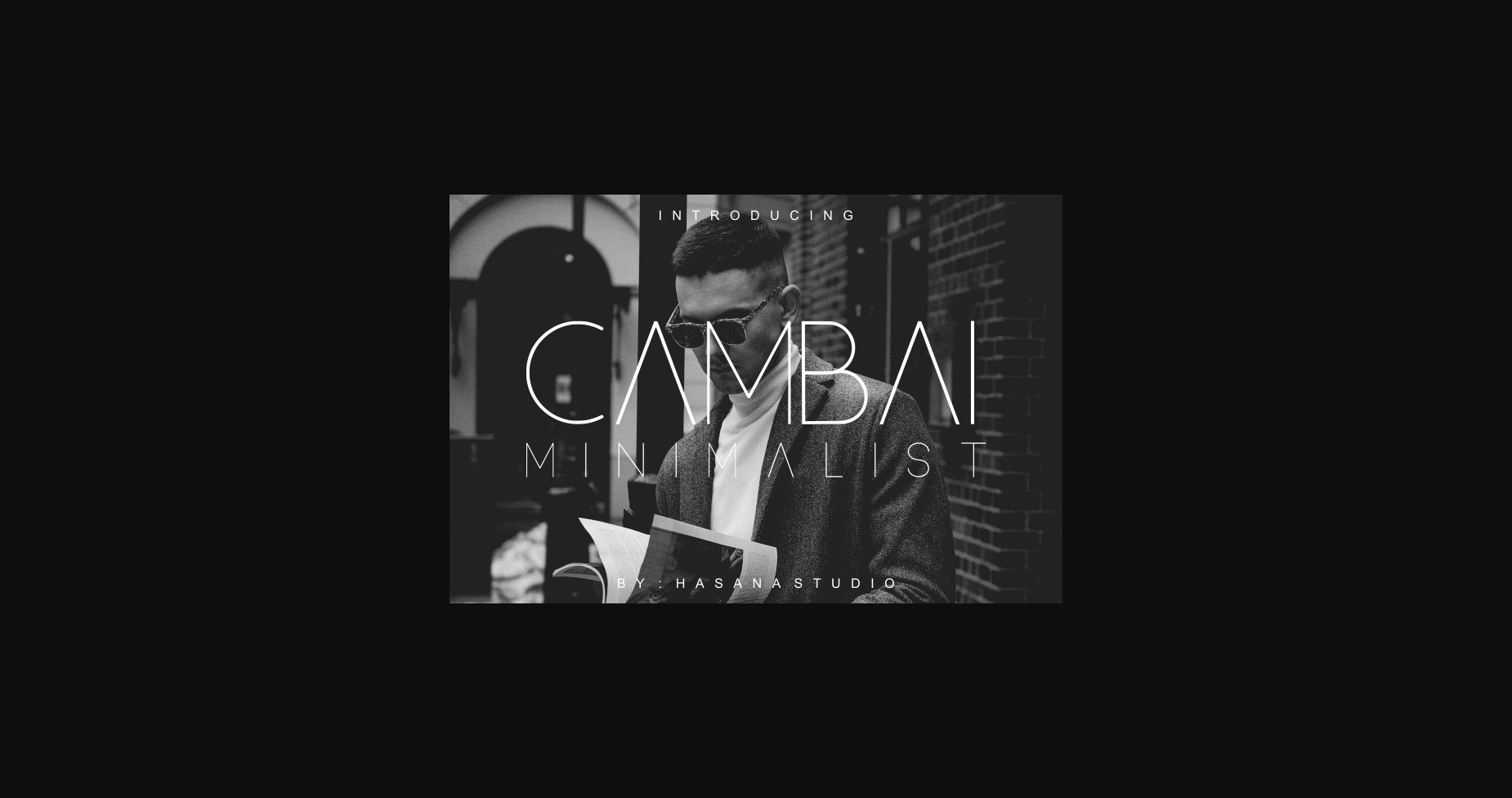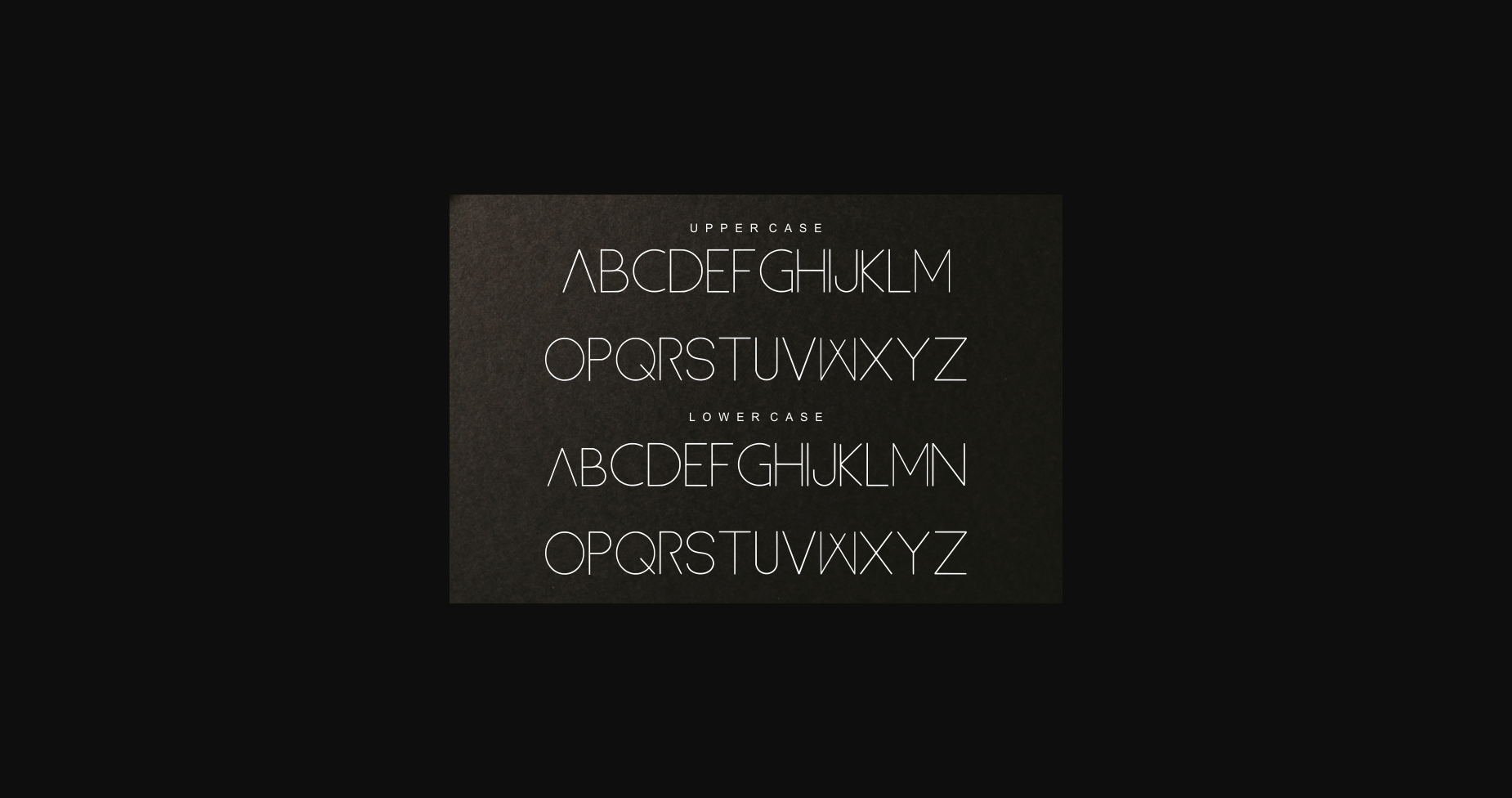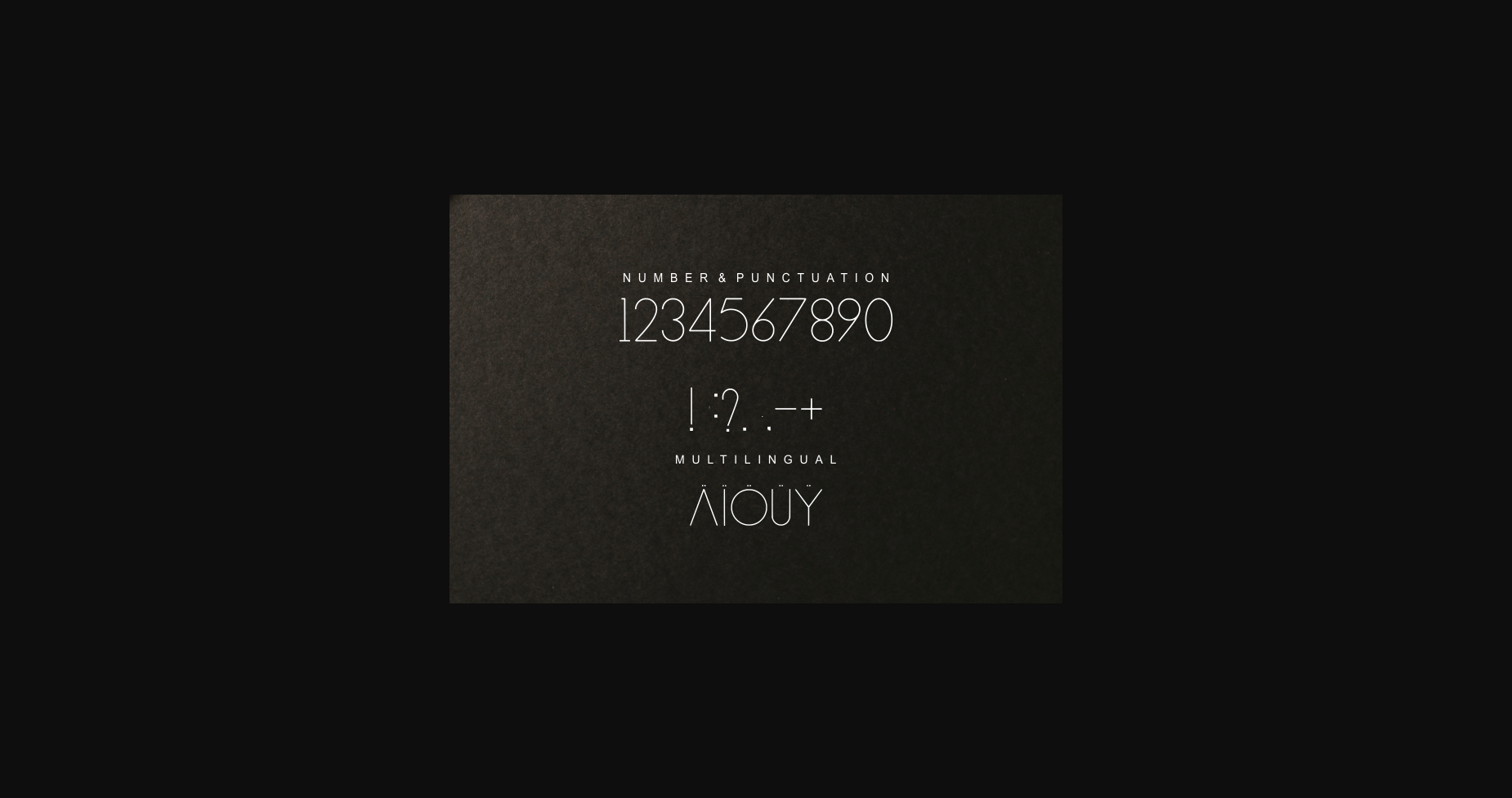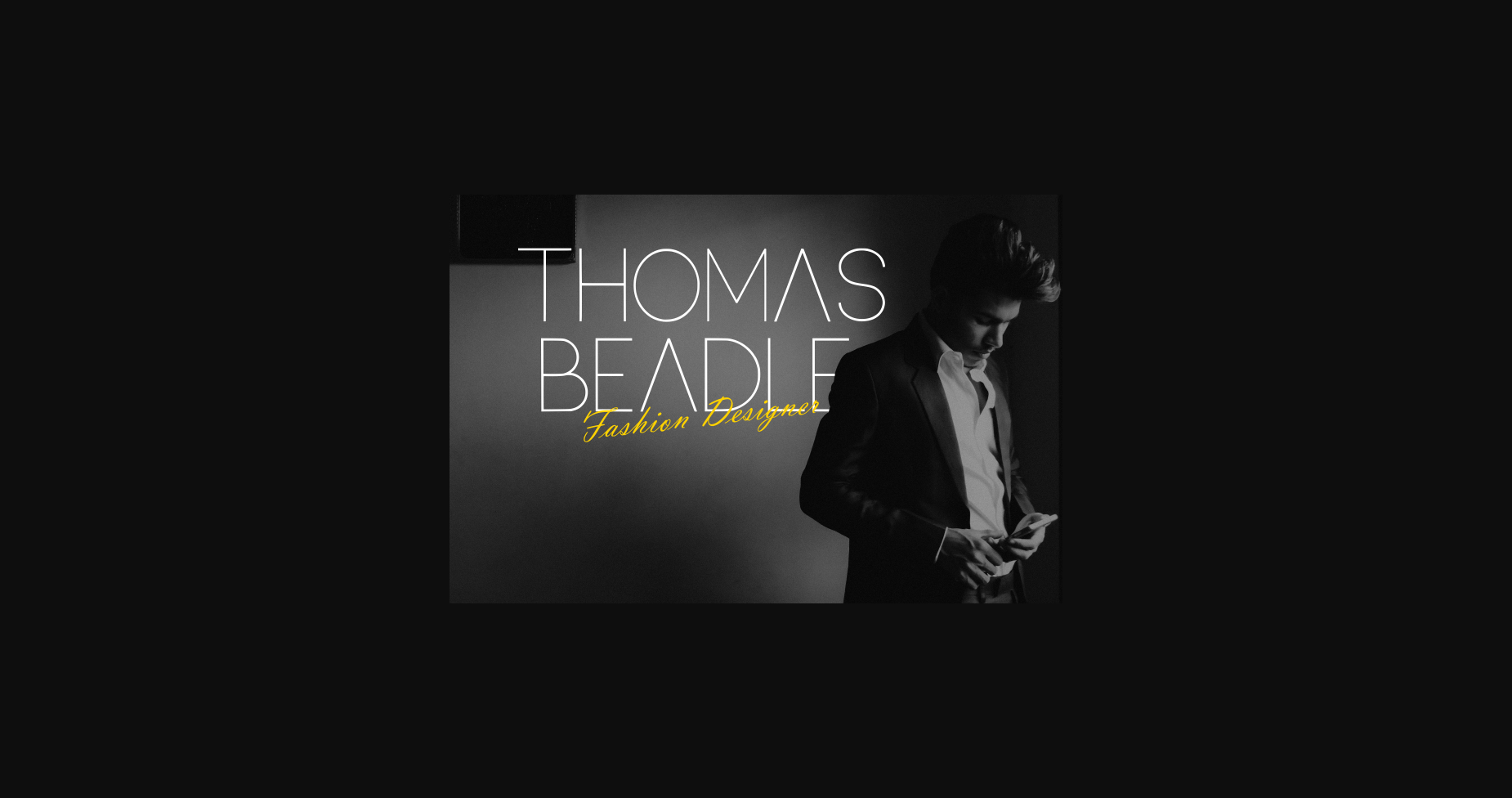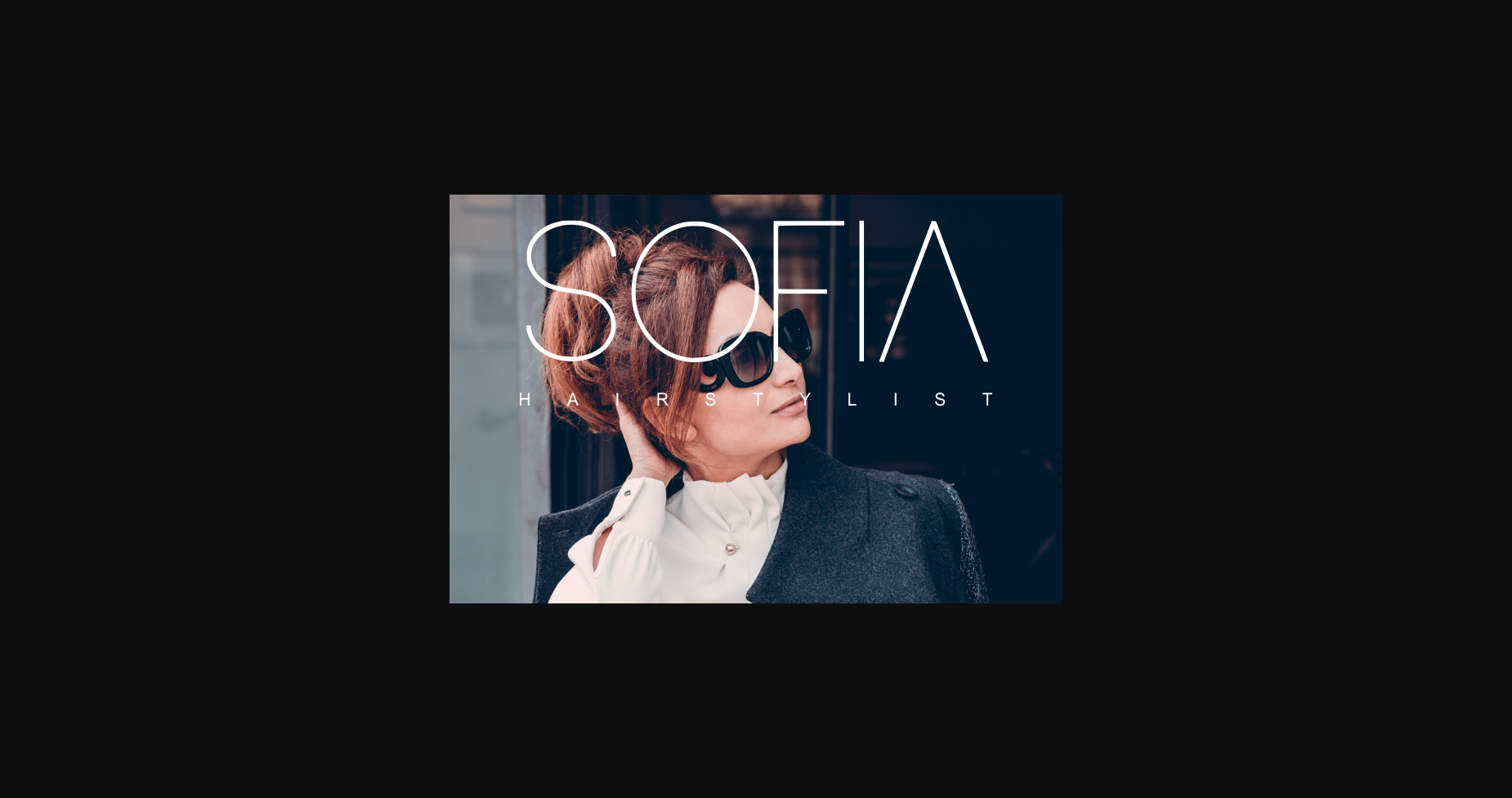
Cambai Minimalist Font
About Cambai Minimalist Font
Cambai Minimalist is a thin lettered and simple sans serif font. It can easily be matched to an incredibly large set of projects, so add it to your creative ideas and notice how it makes them stand out!